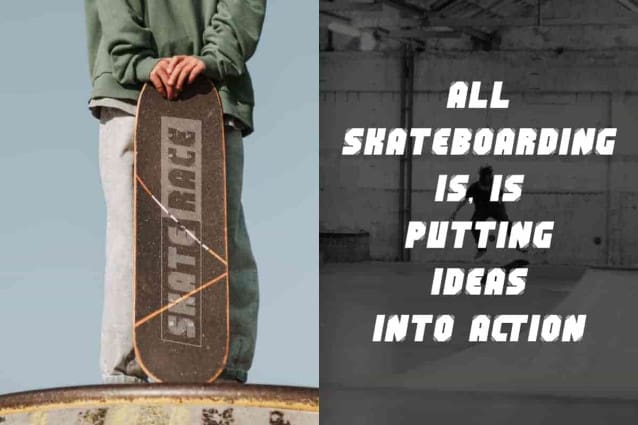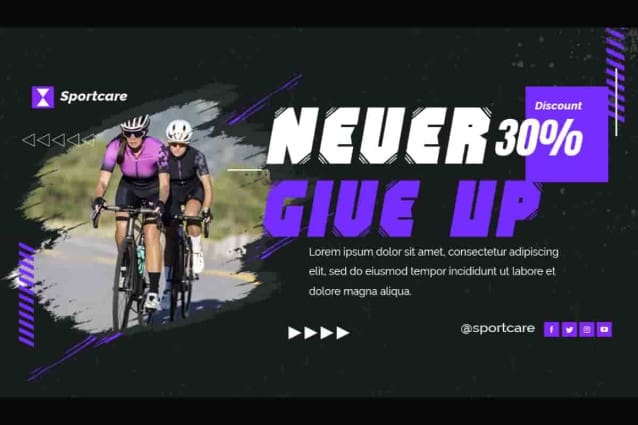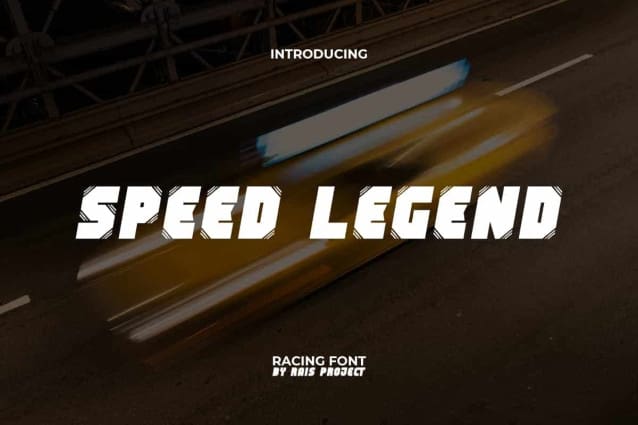
Speed Legend Font
Speed Legend Font is a speedy bold and modern decorated racing display font, by RaisProject. The uniqueness of this display font lies in each corner which has a thin line cut so that it becomes its characteristic. It will be good for label, poster, invitation, signage, cover, menu, custom design, brand image, product packaging, quotes, stationery, web, and more!
Speed Legend Font includes a full set of Uppercase and Lowercase Letters, Numerals, Punctuation and Symbol. This beautiful font will be suitable for various industries, such as automotive, sports, game, movie, fashion, accessories, advertisement, event or festival, cafe, printing, publishing, etc.